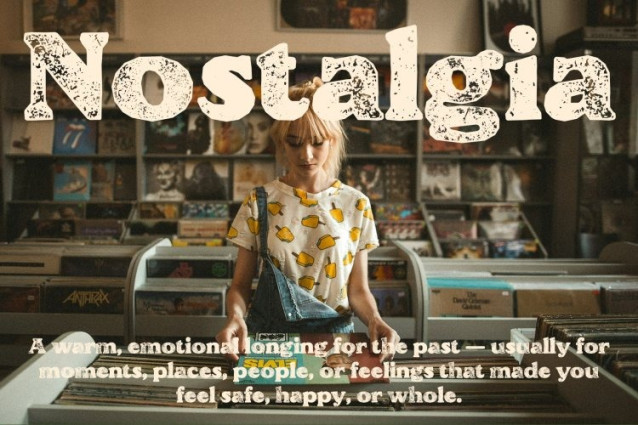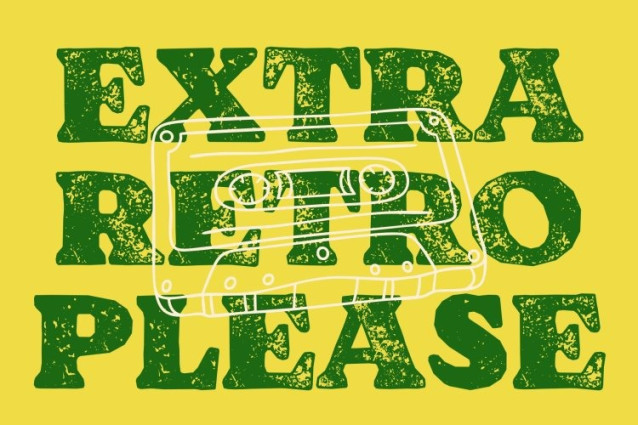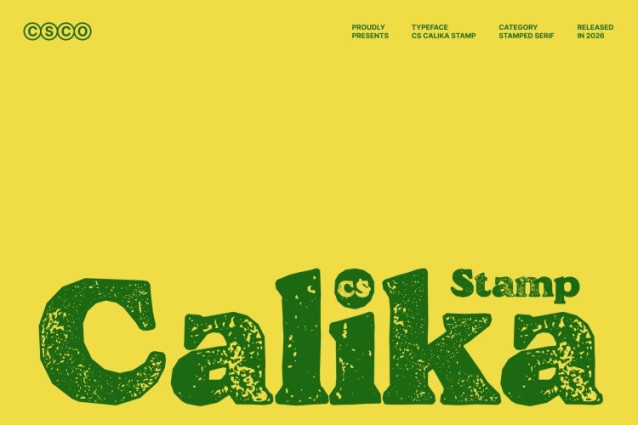
CS Calika Stamp Font
CS Calika Stamp Font is a bold serif font that captures the vibrant energy of 1990s design while introducing a distinctive vintage stamp effect. Its thick strokes, strong outlines, and confident letterforms create a powerful visual presence reminiscent of retro posters and classic advertising. The stamp texture adds a nostalgic layer, giving the font an authentic printed feel that enhances its retro personality.
Striking Forms with Textured Vintage Appeal
The bold structure of this font is enriched with subtle distressed edges and ink-like imperfections. These artistic details evoke the look of stamped or aged print materials, adding depth and character to the already expressive letterforms.
Inspired by the Graphic Style of the 90s
Drawing from the bold and playful graphic aesthetics of the 1990s, this font reflects the era’s love for impactful typography and memorable visual statements. Its robust design and nostalgic charm make it ideal for recreating the atmosphere of retro advertisements, posters, and promotional graphics.
Perfect for Vintage Branding and Retro Promotions
This font excels in projects that celebrate retro style and bold visual identity. Whether used for vintage branding, music posters, event promotions, or creative campaigns, the font delivers a memorable combination of bold elegance and nostalgic character. The added stamp effect ensures each design feels expressive, textured, and full of retro charm.